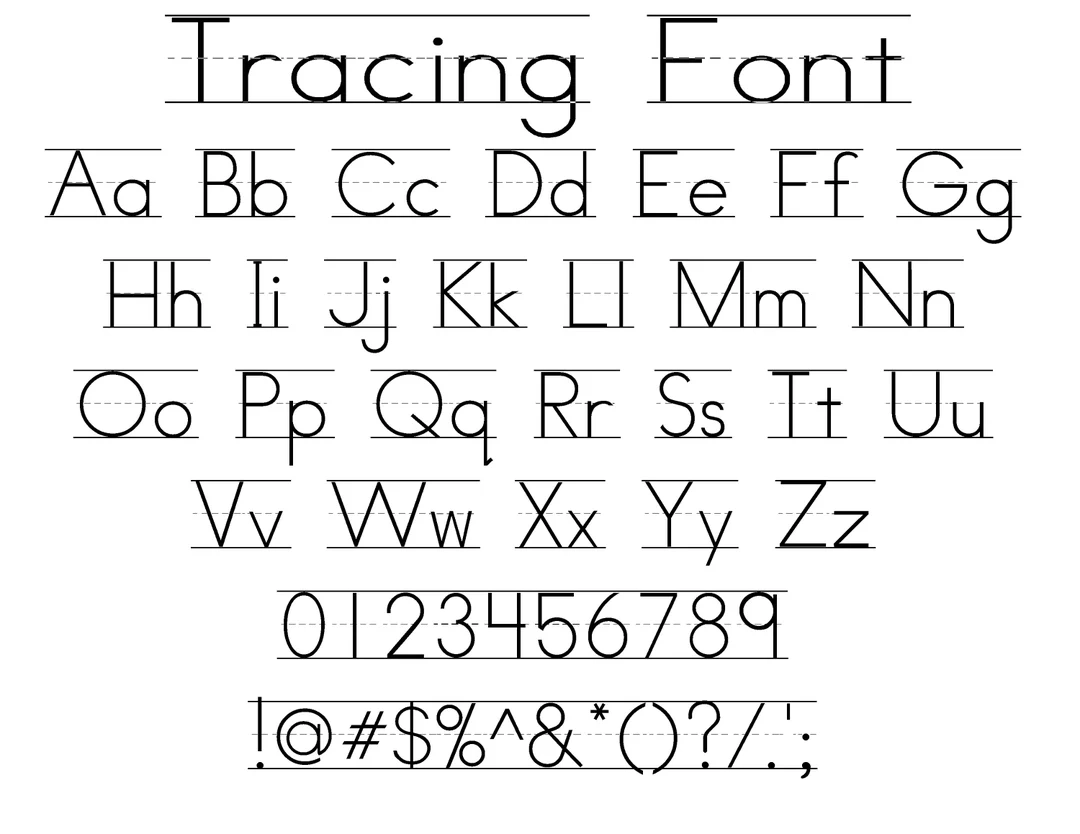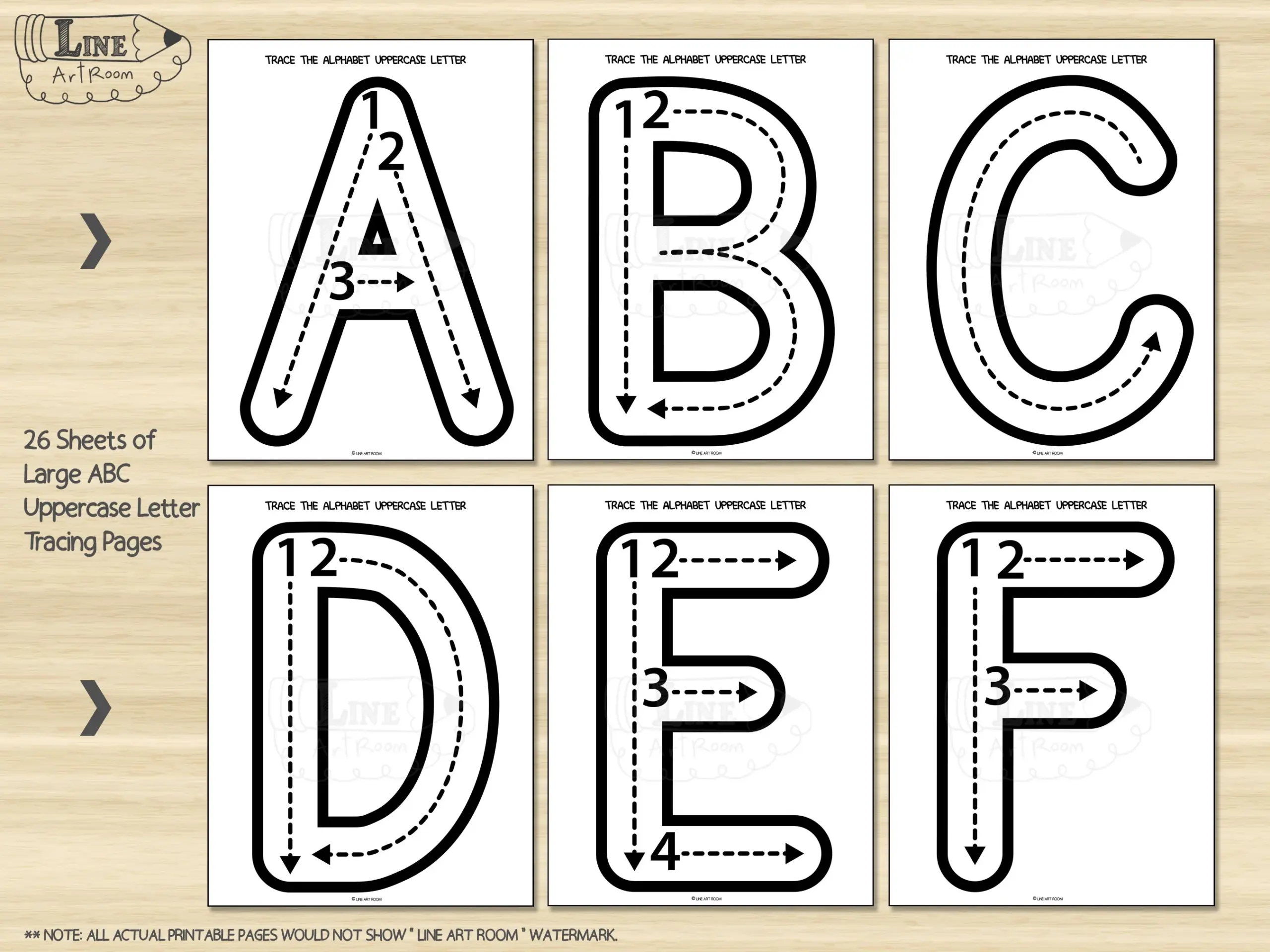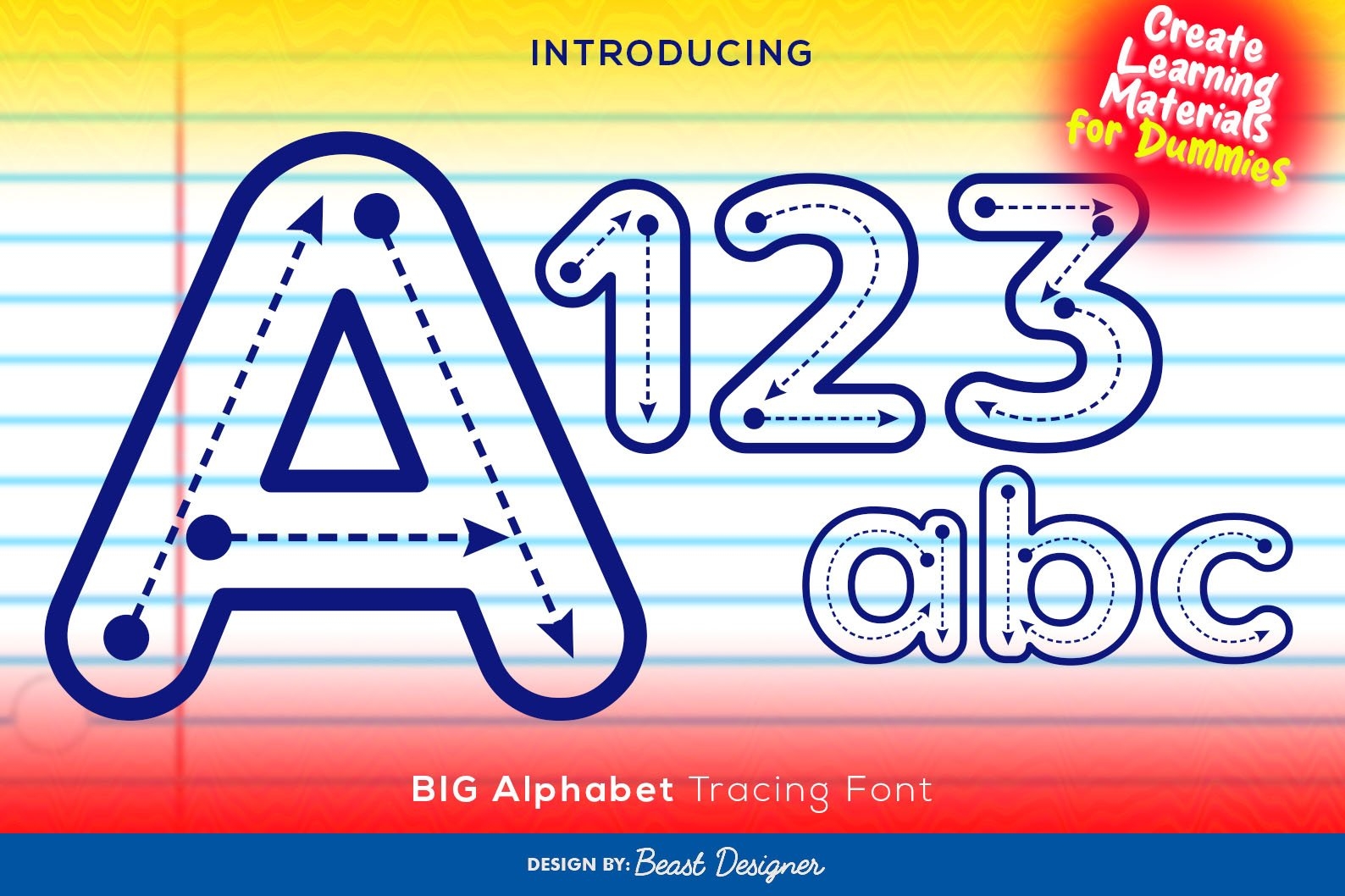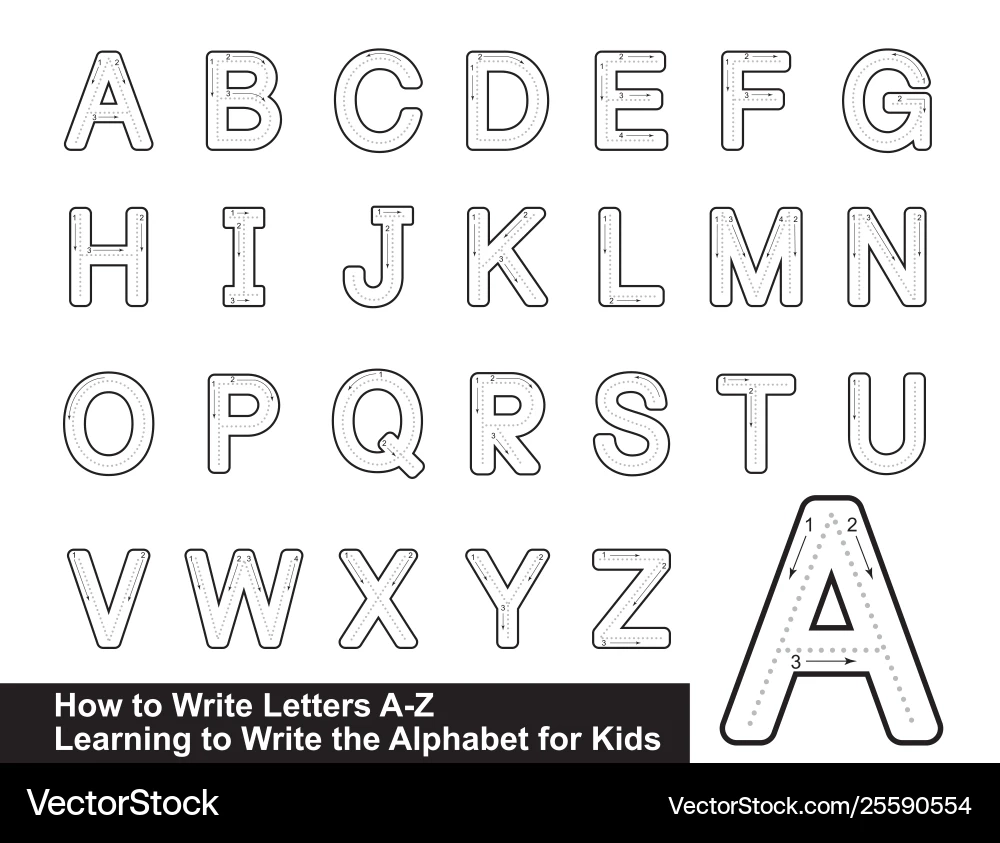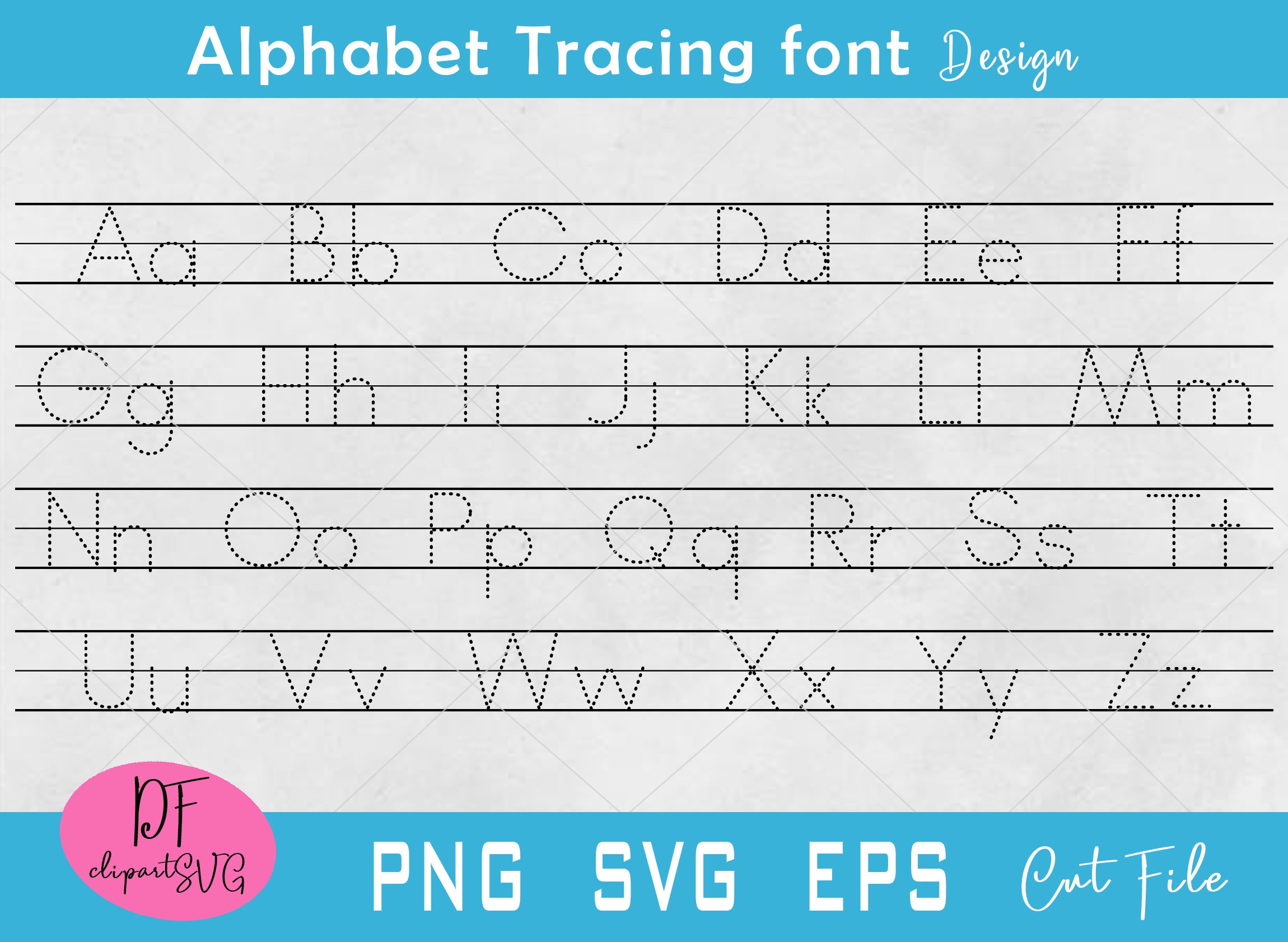
Learning to write can be a fun adventure for kids. Using the right tools can make this journey even more enjoyable. One such tool is the Alphabet Letter Tracing Font, which helps children practice their writing skills effectively.
The Alphabet Letter Tracing Font is designed specifically for early learners. It features dotted letters that guide children in forming each character correctly. This visual aid makes learning both easier and more enjoyable for little hands.
Using this font, kids can practice at their own pace. They can trace letters repeatedly until they feel confident. This repetition builds muscle memory, which is crucial for developing writing skills in the long run.
Moreover, the Alphabet Letter Tracing Font can be used in various activities. From worksheets to digital apps, it fits seamlessly into different learning environments. This versatility makes it a favorite among teachers and parents alike.
Incorporating the Alphabet Letter Tracing Font into daily practice can yield great results. Children not only learn how to write but also gain confidence in their abilities. With consistent use, they will be well on their way to becoming proficient writers.
Encouraging kids to use the Alphabet Letter Tracing Font can transform their writing experience. It’s an engaging way to help them master the art of writing while having fun along the way.